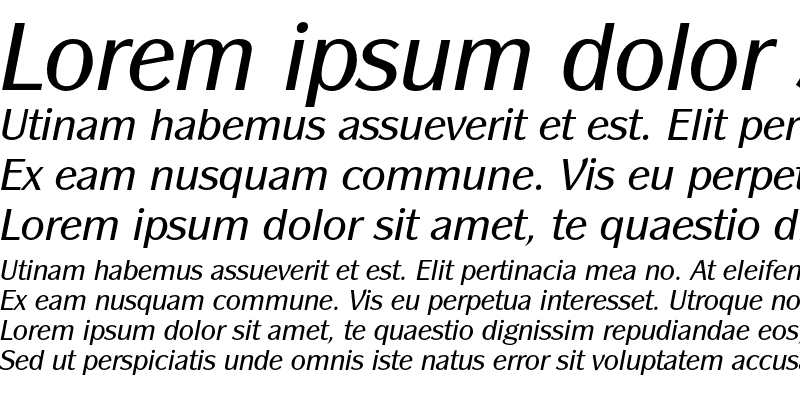
ITC Panache Font
ITC Panache Font is perfect for luxury fashion branding, elegant magazine layouts, sophisticated logo design, premium cosmetics packaging, high-end retail communications, upscale restaurant menus, stylish web typography, and refined advertising campaigns. This distinguished typeface works magnificently in both digital applications and print media where style, sophistication, and fashionable elegance are paramount design considerations.
What makes ITC Panache Font so exciting is its exquisite blend of contemporary sophistication and timeless elegance that instantly communicates luxury and refined taste through meticulously crafted letterforms. The font features stylish, flowing characters with graceful curves, sophisticated proportions, and distinctive flourishes that create an atmosphere of premium quality and fashionable appeal. Its chic personality and designer heritage make it ideal for brands seeking to establish prestige in competitive luxury markets while appealing to discerning customers who value style, quality, and exclusive experiences.
The ITC Panache Font family includes multiple stylistic variations from light to bold weights, along with elegant italic styles and decorative alternates. Each style maintains the typeface's sophisticated character while offering comprehensive character sets including stylish numerals, fashion-focused punctuation marks, and special symbols designed to enhance luxury brand communications and international fashion marketing efforts.
This extraordinary typeface represents the perfect marriage of fashion industry aesthetics and professional typography for luxury market applications. Whether you're developing haute couture brand identities, creating premium lifestyle magazines, or designing exclusive boutique materials, ITC Panache Font Free Download delivers the stylish elegance and versatility needed to captivate affluent audiences. The font's fashion heritage makes it particularly effective for luxury fashion houses, premium beauty brands, upscale hospitality, and lifestyle companies targeting sophisticated consumers.
The carefully refined letterforms and optimized elegance in ITC Panache Font ensure stunning visual impact while maintaining exceptional readability across all luxury applications. Its sophisticated presence makes it ideal for brand names, elegant headlines, and premium communications where its full stylish character can create memorable impressions and establish immediate association with luxury, exclusivity, and impeccable taste.